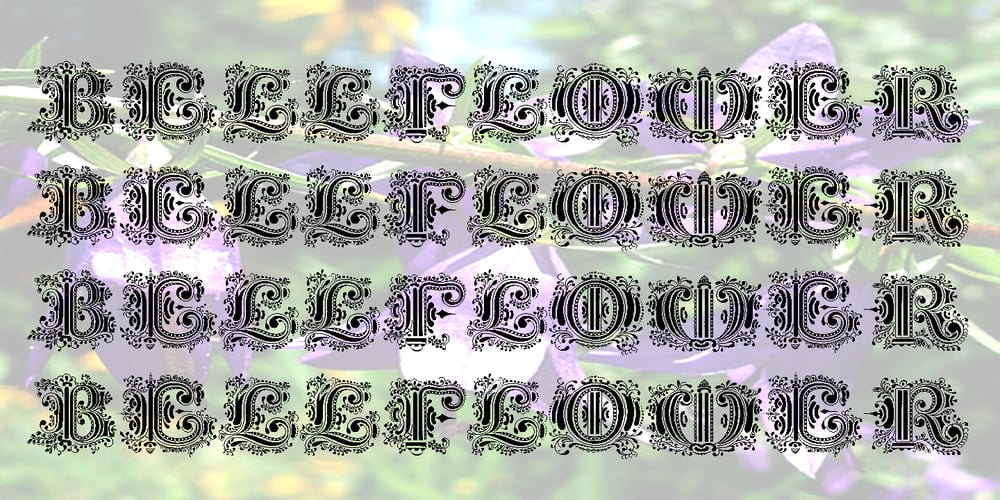
Bellflower Font Family was designed by Jose Jimenez and published by Celebrity Fontz. Bellflower contains 1 styles and family package options. Bellflower is a collection of highly ornamented letters contoured with flourishes and tiny bellflowers. Romantic and classic, this stylized collection looks like something straight out of a fairy tale typography garden and comes with a full set of extended accented characters. Accented characters are also included. This digital format allows colorizing of type and is a perfect font for publications that want to capture the feel of the Victorian and Art Deco eras. Article abstract: Bellflower is a collection of highly ornamented letters contoured with flourishes and tiny bellflowers. Romantic and classic, this stylized collection looks like something straight out of a fairy tale typography garden and comes with a full set of extended accented characters.